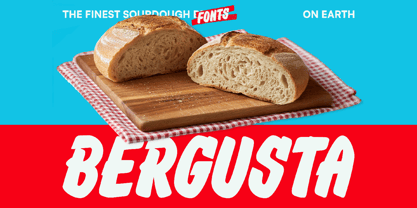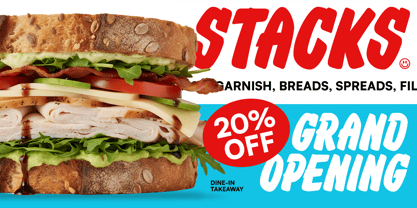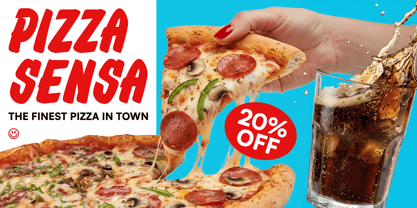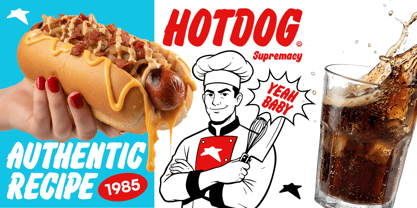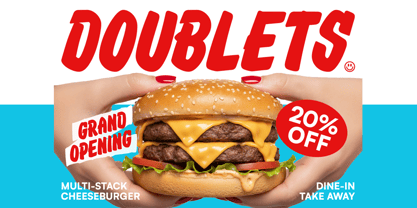
Bergusta
by Konstantine Studio
The Bergusta Font Family was designed by Abdilah and published by Konstantine Studio. Bergusta contains 1 styles. More about this family
Bring the bold, hand-painted soul of 70s and 80s Americana to your menu. There’s a reason the diners and burger joints of the late 20th century felt so welcoming—it was the human touch. Bergusta is a tribute to that era of craftsmanship. Inspired by the iconic, sun-drenched signage of American main streets, Bergusta captures the thick, buttery strokes of a master sign painter’s brush. With its heavyweight presence and a dynamic forward lean, Bergusta doesn’t just sit on a page; it moves. It’s designed with a natural, organic flow that mimics the slight imperfections and soulful curves of a hand-lettered masterpiece found on a roadside pizza parlor or a bustling New York deli. Why Bergusta is a “Must-Have” for Food Branding: Deliciously Bold: Perfect for high-impact headlines that need to grab attention across a crowded room or a busy social media feed. Retro Authenticity: Precisely engineered to evoke the nostalgia of 1970s and 80s advertising without feeling “dated.” Built for Appetite: The soft, rounded terminals and thick stems are visually “tasty,” making it the ideal choice for burger branding, pizza boxes, sandwich menus, and food trucks. Versatile Personality: While it excels in F&B, its “Main Street” vibe works beautifully for vintage apparel, sports logos, and bold editorial layouts. “In a world of clean, sterile digital fonts, Bergusta brings the grease, the sizzle, and the soul back to design.” Ready to Serve Up Something Bold? Don’t let your brand blend into the background. Give your project the flavor and weight it deserves with the ultimate retro sign-painting font.
Designers: Abdilah
Foundry: Konstantine Studio